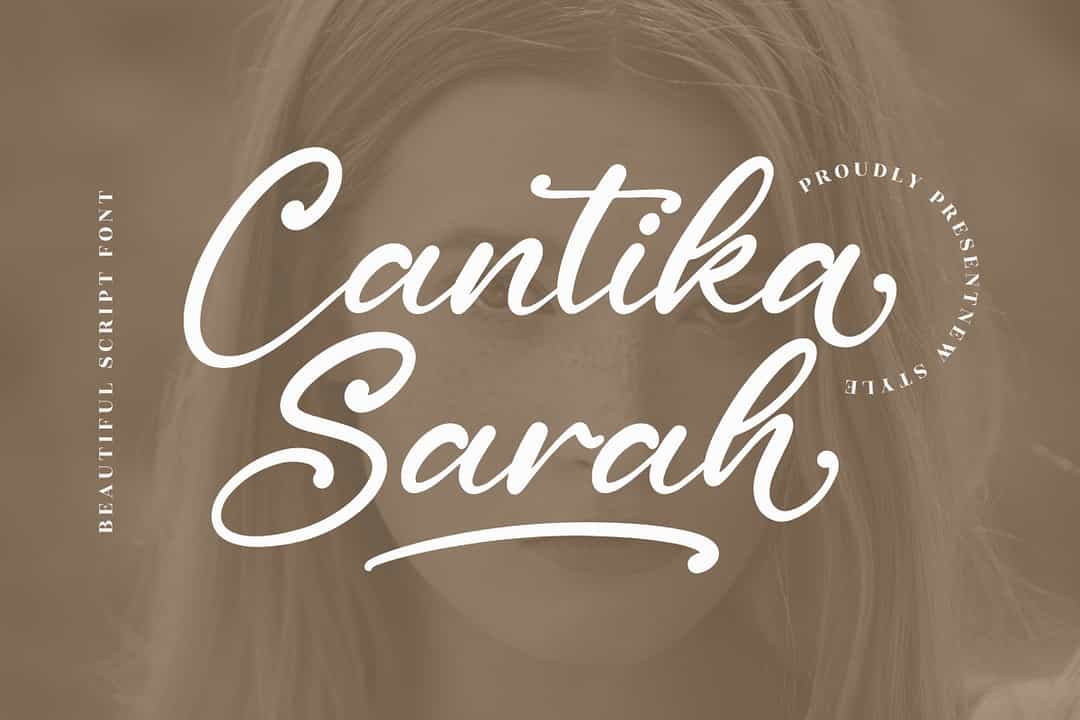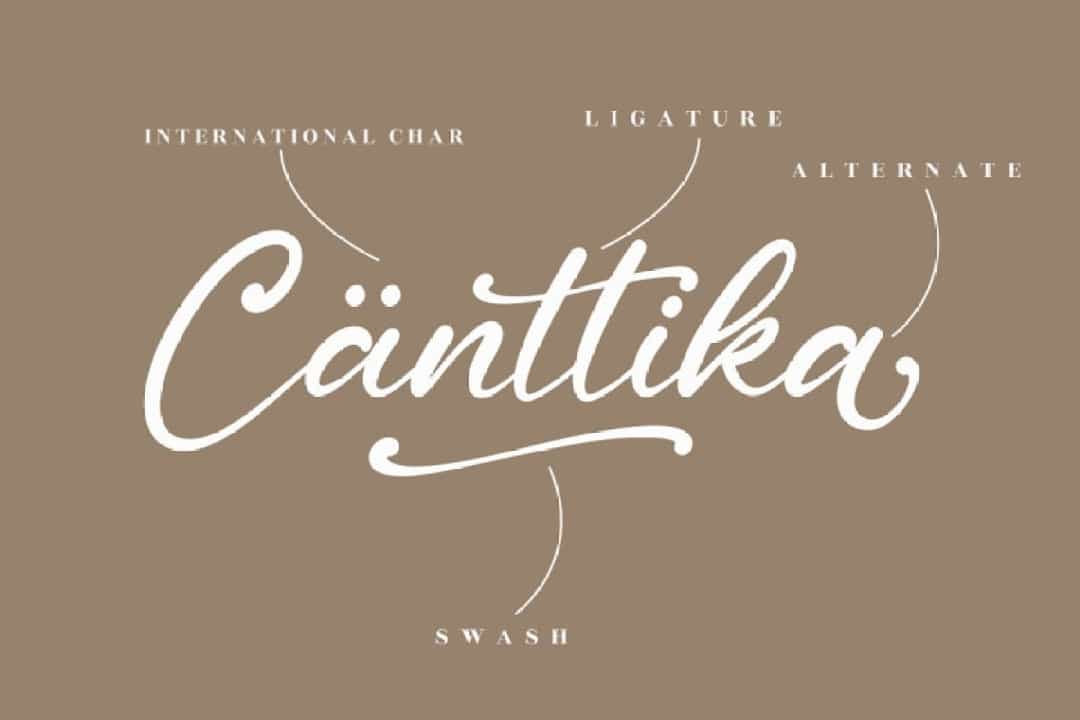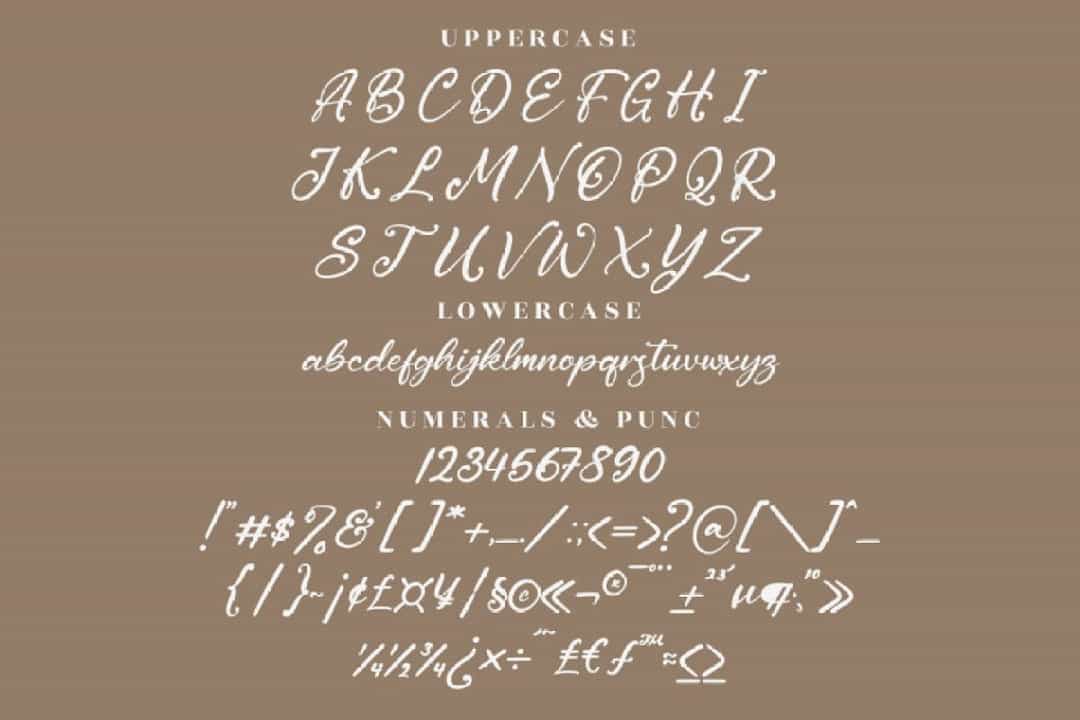
Cantika Sarah is another exquisite calligraphy font with characters moving across its base; sure to add luxurious sparkle to any design you create! Plus it’s PUA encoded so you have access to all its beautiful glyphs and ligatures effortlessly!